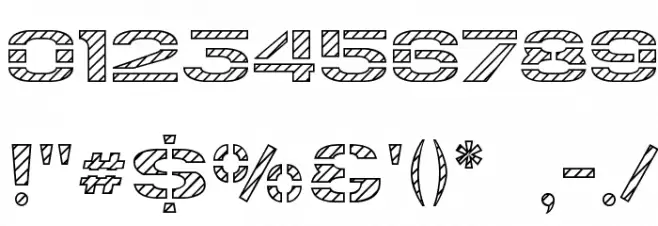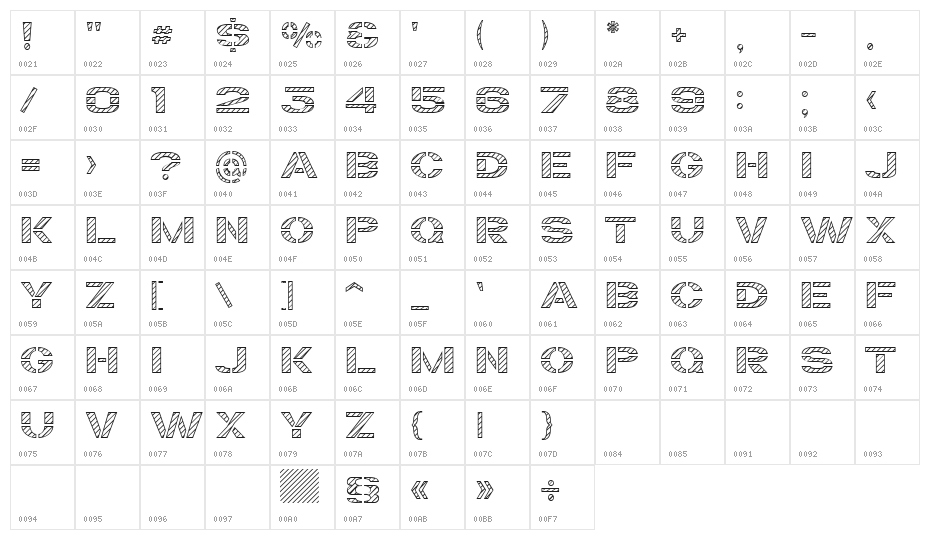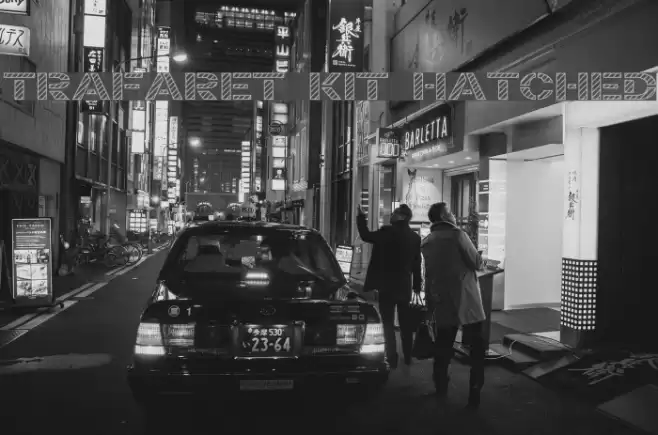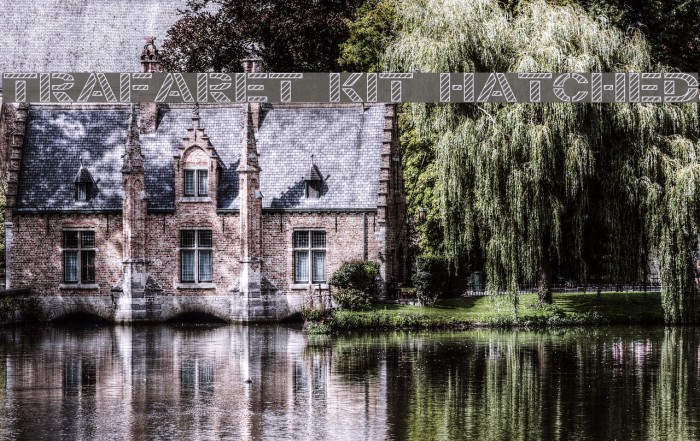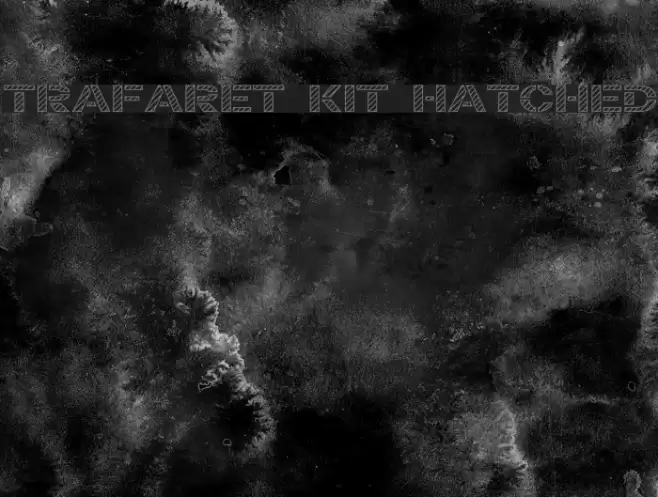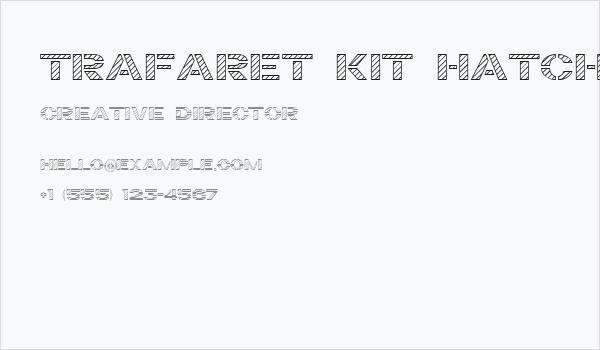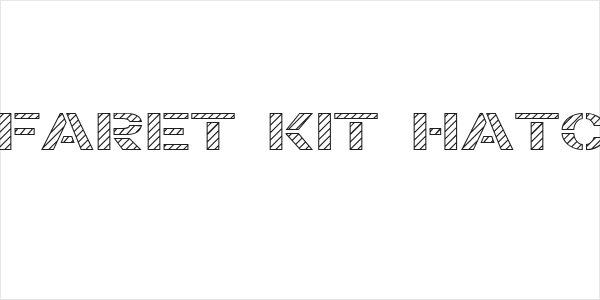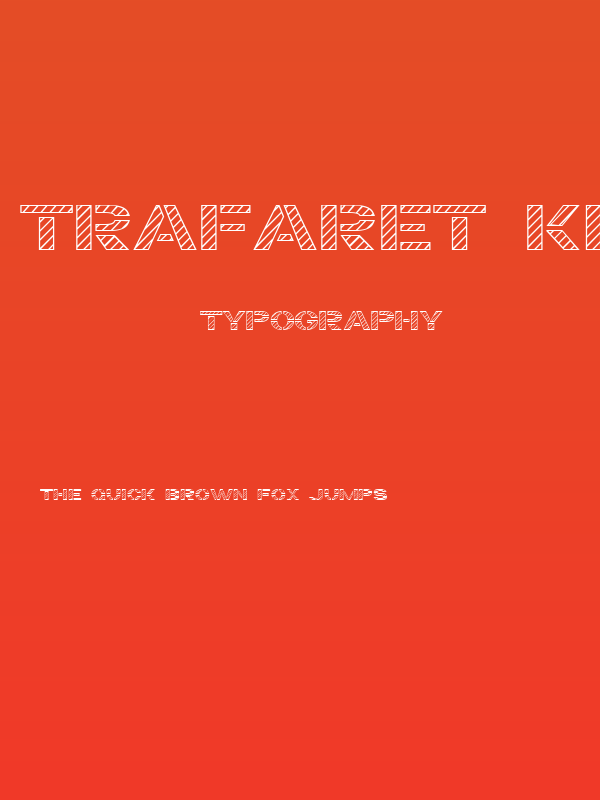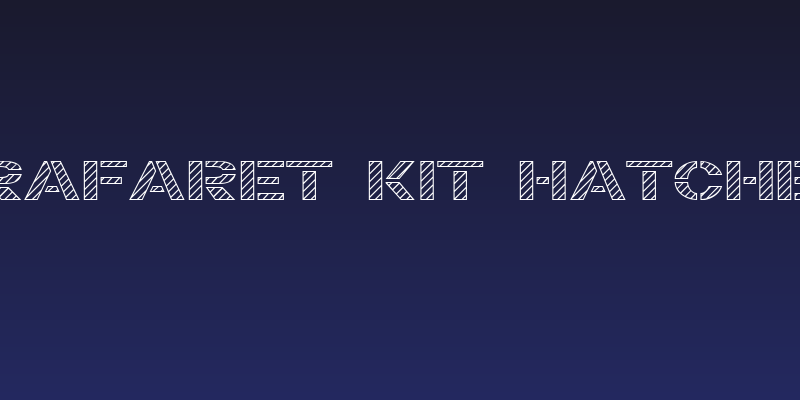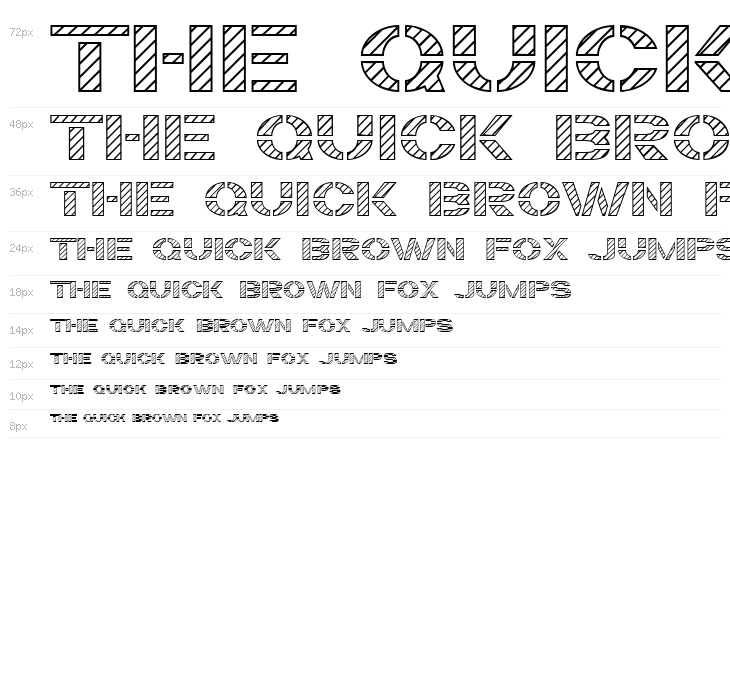
Trafaret Kit Hatched Font
Trafaret Kit Hatched Description
This font features a unique stencil-like design with hatched lines filling each character. The uppercase and lowercase letters, as well as numbers and special characters, are all constructed with a consistent pattern of diagonal lines, giving it a distinct industrial and modern appearance. The geometric shapes are bold and clear, making it suitable for eye-catching designs. The font's style is reminiscent of technical drawings or blueprints, adding a creative and innovative touch to any project. The spacing between characters is uniform, ensuring readability while maintaining its decorative appeal.
| Proposed Projects | Ideal for branding, posters, signage, and any project requiring a bold, technical aesthetic. |